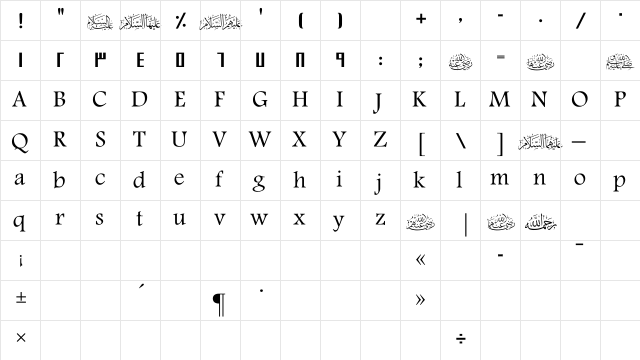
SC_SHMOOKH 01 REGULAR
Design Context for SC_SHMOOKH 01 Typeface
SC_SHMOOKH 01 offers clean, dependable letterforms without strong stylistic allegiance, making it a practical choice for designers who need flexibility.
Pro Tip: Use SC_SHMOOKH 01 in both headline and body roles to test its range before committing to a single application.